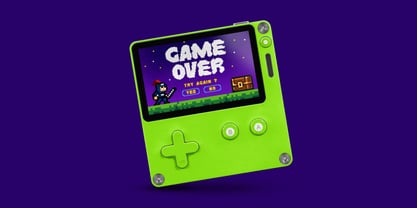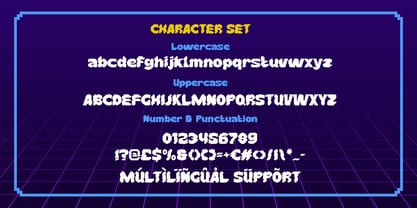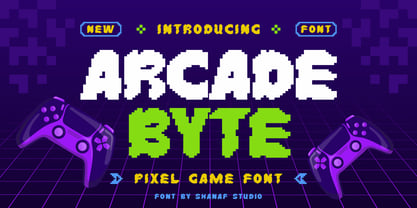
Arcade Byte
by Shanaf
The Arcade Byte Font Family was designed by Yesie Erma Yunita and published by Shanaf. Arcade Byte contains 1 styles. More about this family
Arcade Byte Pixel Game Font brings the nostalgic energy of classic gaming into a bold and highly recognizable typeface. The letterforms feature a blocky pixel construction with square edges, stepped corners, and grid-based geometry that instantly recalls the golden era of arcade machines and early console adventures. Each character uses thick pixel strokes and compact proportions to create strong visibility in large display sizes. The font feels playful, energetic, and adventurous while maintaining excellent readability for titles and branding applications. Its retro gaming personality makes it ideal for projects that celebrate digital entertainment, virtual worlds, fantasy quests, and interactive experiences. This font works perfectly for logos, branding, posters, advertisements, game titles, packaging, stickers, magazine covers, book covers, event graphics, promotional materials, social media content, crafting projects, greeting cards, and headline typography. The consistent pixel structure helps create an authentic gaming atmosphere that immediately connects with players, collectors, and retro culture enthusiasts across many creative industries.
Arcade Byte Pixel Game Font suits a wide range of businesses and products beyond video games. It works exceptionally well for gaming studios, esports communities, streaming channels, gaming events, technology products, digital platforms, toy stores, hobby businesses, educational games, coding programs, and entertainment brands. The font can support mobile games, console games, PC games, puzzle games, adventure games, fantasy games, and family-friendly interactive content. Its pixel-inspired appearance also fits businesses related to technology, digital innovation, virtual experiences, collectible products, electronics, and creative media. The bold construction helps logos stand out while creating a memorable brand identity. Use it for promotional banners, event posters, YouTube thumbnails, online campaigns, product packaging, invitation cards, movie titles, comic covers, children's activities, and arcade-themed projects. The multilingual character set expands usability across global markets, while the playful pixel design keeps every message engaging, nostalgic, and full of gaming excitement. Arcade Byte Pixel Game Font offers a strong visual voice for brands that want to celebrate fun, creativity, and digital culture.